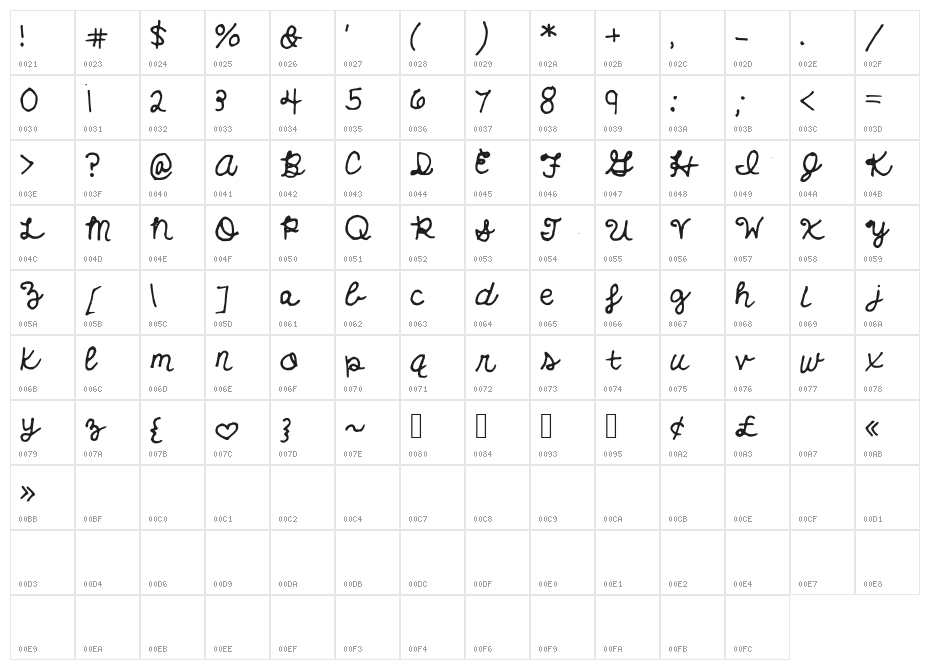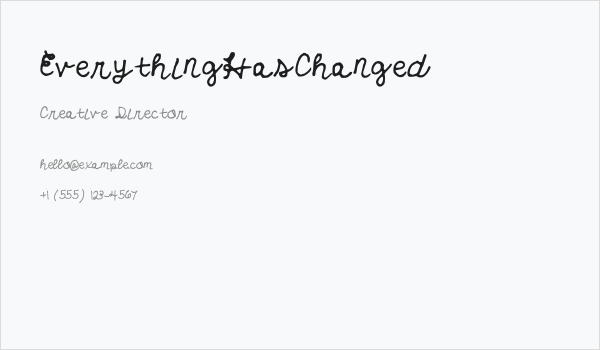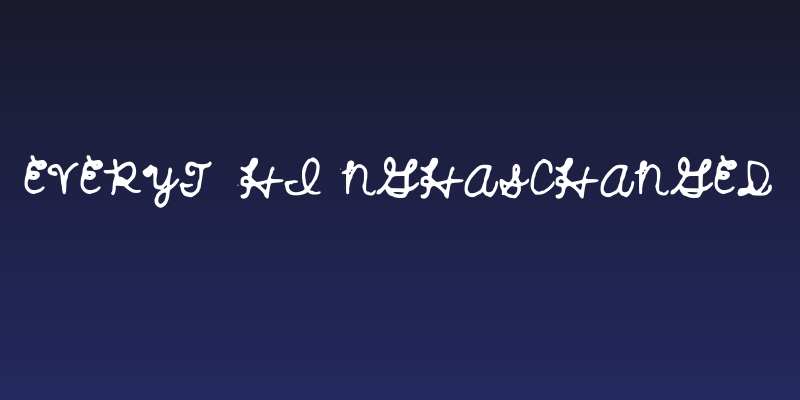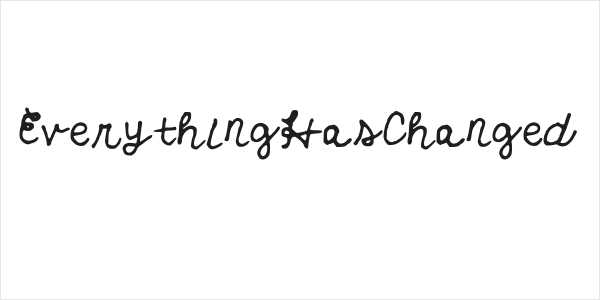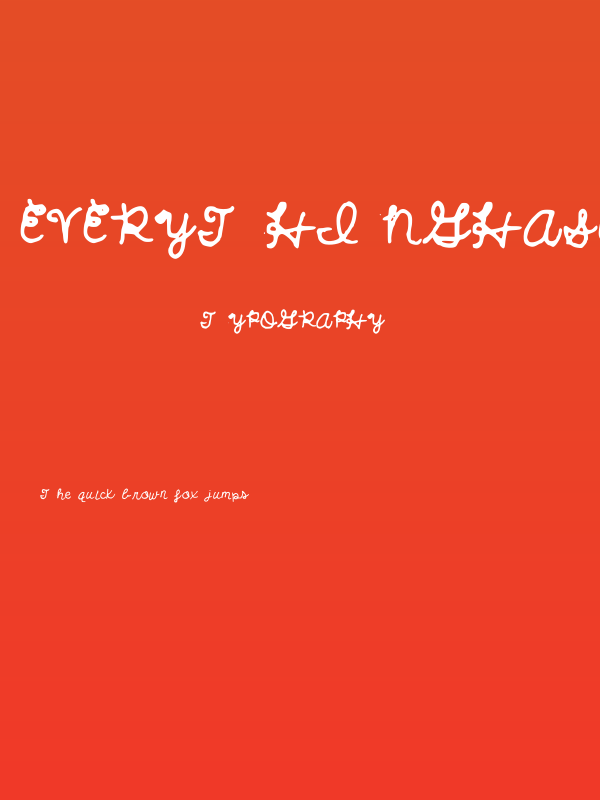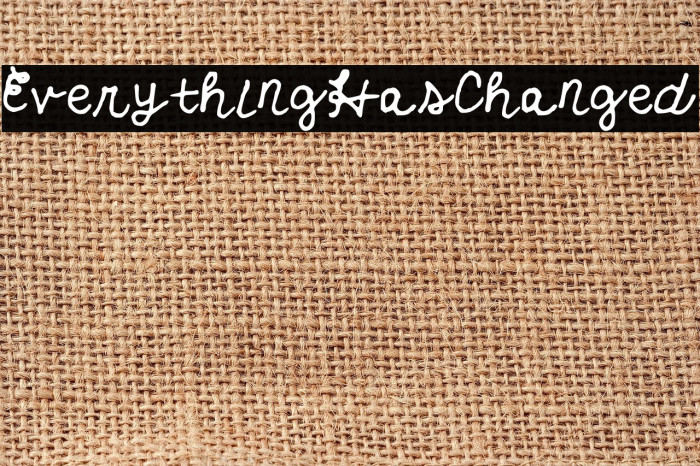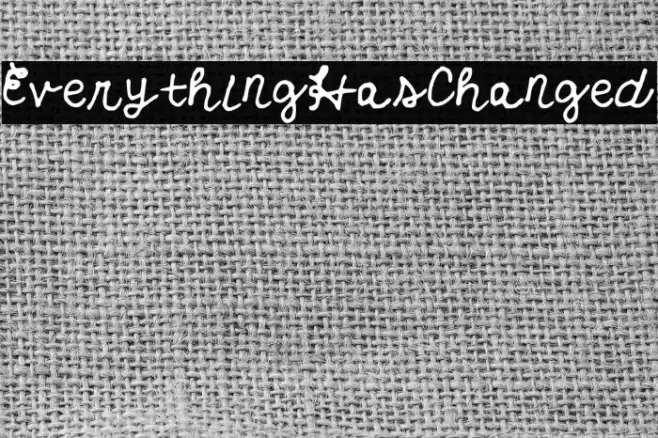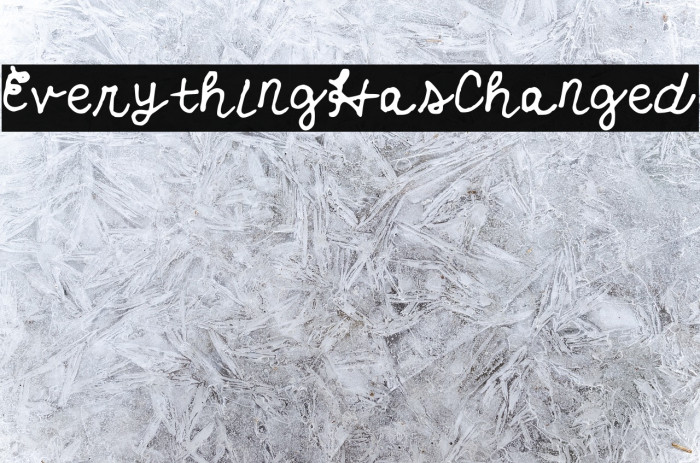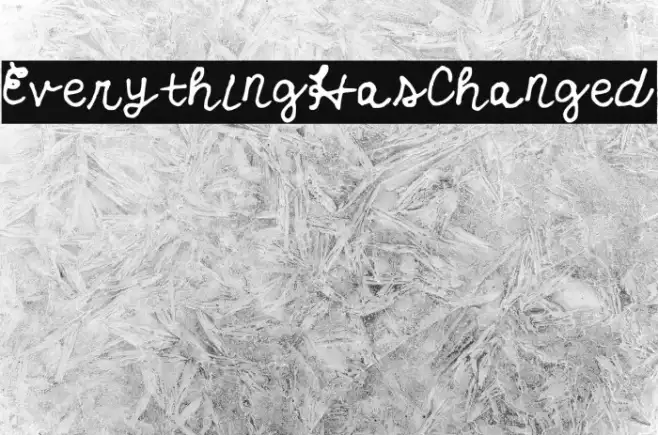
EverythingHasChanged Font
EverythingHasChanged Description
This font features a playful and whimsical handwritten style, characterized by its fluid and connected letterforms. The uppercase letters are bold and slightly irregular, giving a sense of spontaneity and creativity. The lowercase letters maintain a consistent flow, with loops and curves that add to the font's charm. Numbers and special characters are crafted with the same lively spirit, making them stand out in a fun and engaging way. The overall appearance is casual and friendly, suitable for projects that require a personal touch.
| Proposed Projects | Ideal for greeting cards, invitations, children's books, and creative branding. |